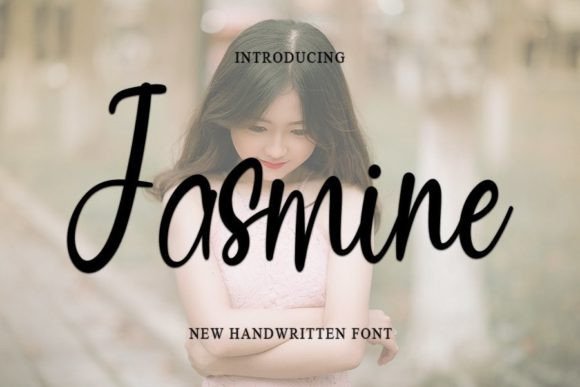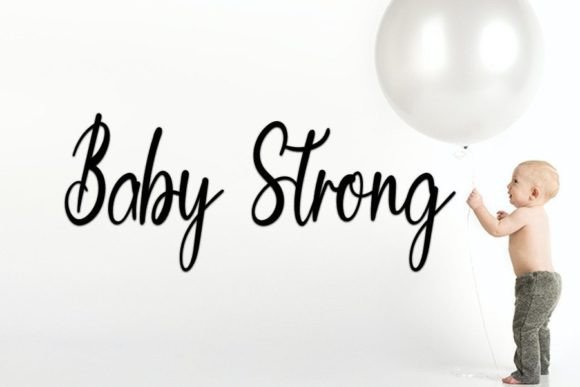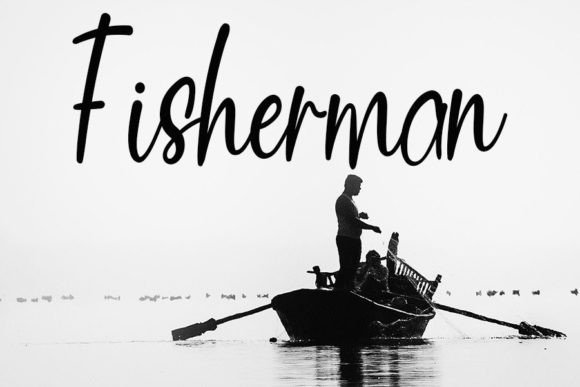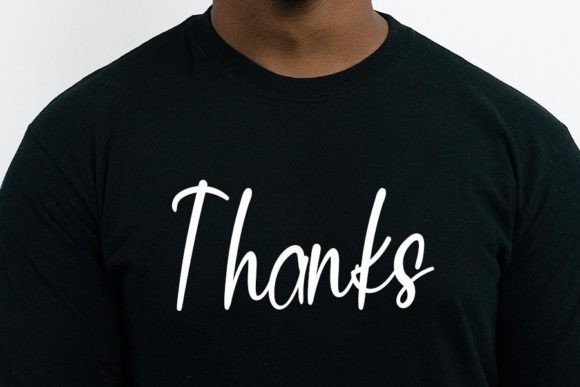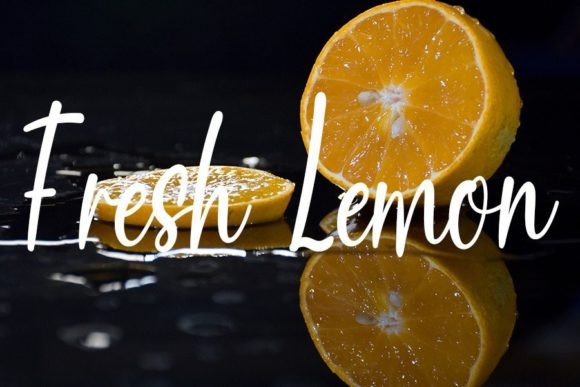
Jasmine Font
About Jasmine Font
Jasmine introduces itself as a neat and beautiful handwritten font, distinguished by an elegant touch that makes it perfect for a variety of creative projects. Its distinct and timeless style is designed to capture hearts, inviting you to fall in love with its unique charm and leverage it to craft spectacular designs.
The neatness of Jasmine contributes to its clarity and readability, ensuring that your content is presented with precision and legibility. This feature makes it suitable for a broad range of applications, from personal projects to professional designs, where a clear and clean aesthetic is desired.
The elegant touch in Jasmine adds a layer of sophistication, elevating it beyond a mere typeface. This touch of elegance makes it a fitting choice for projects that demand a refined and stylish appearance. Whether employed in branding, invitations, or other design endeavors, Jasmine brings a timeless style that exudes sophistication.
Jasmine’s handwritten charm is an asset, especially for projects requiring a blend of personalization and professionalism. The font’s versatility allows it to adapt seamlessly to different themes and contexts, making it a reliable and visually appealing option for a variety of design applications.
In essence, Jasmine is more than just a font; it’s a design tool that combines neatness, elegance, and a timeless style. Its distinct qualities make it an excellent choice for those looking to create visually striking and memorable designs across a spectrum of creative projects. Embrace the distinct and timeless charm of Jasmine to infuse your creations with a touch of elegance and sophistication.